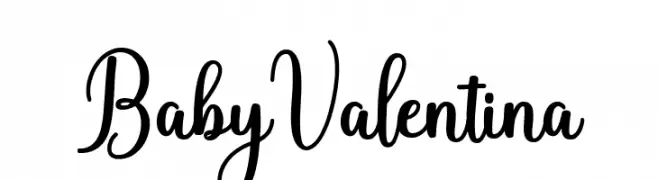
A playful and elegant script font with flowing, cursive letters.
A modern, elegant script font with high contrast and flowing cursive letters.
A graceful and elegant script font with flowing cursive letters.
A playful and elegant script font with decorative swashes and flowing letterforms.
A charming and elegant script font with playful, whimsical curves.
A cursive font with elegant loops and swashes, perfect for artistic and sophisticated designs.
Bold, expressive handwritten script font.